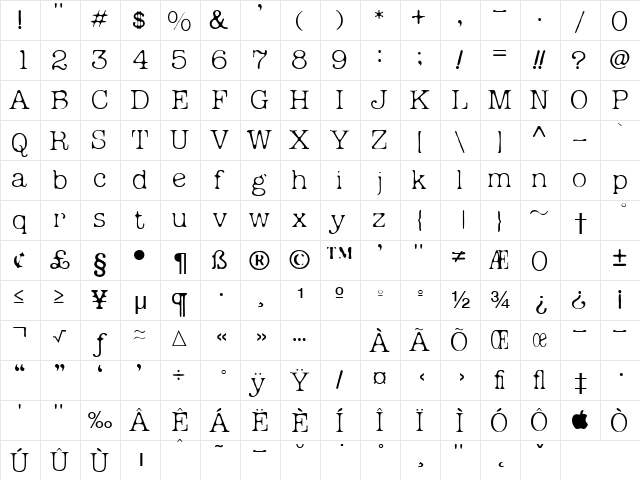
Micahels Plain
Design Context for Micahels Typeface
Micahels takes a measured approach to typography — its balanced proportions and neutral character make it a reliable workhorse for both digital and print work.